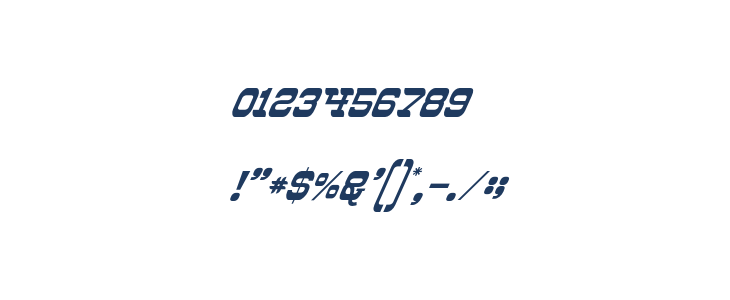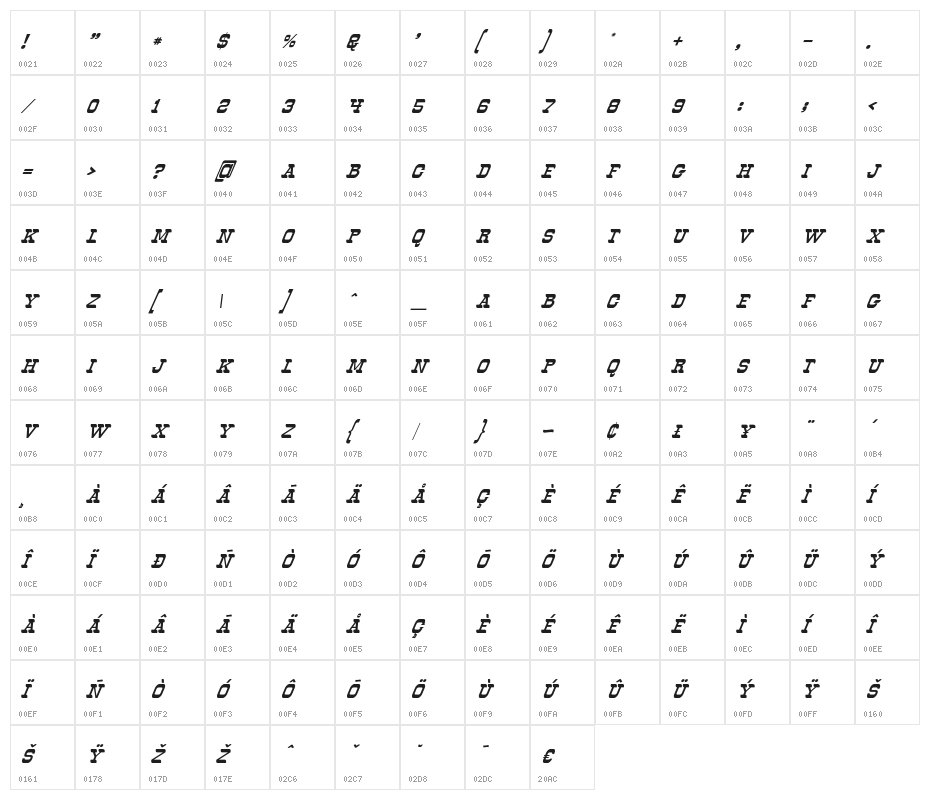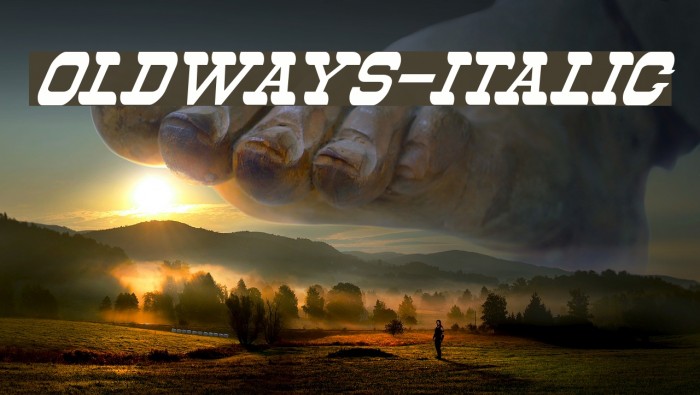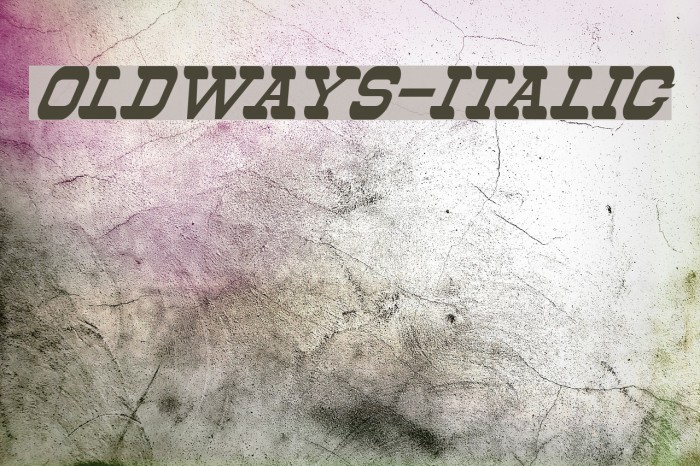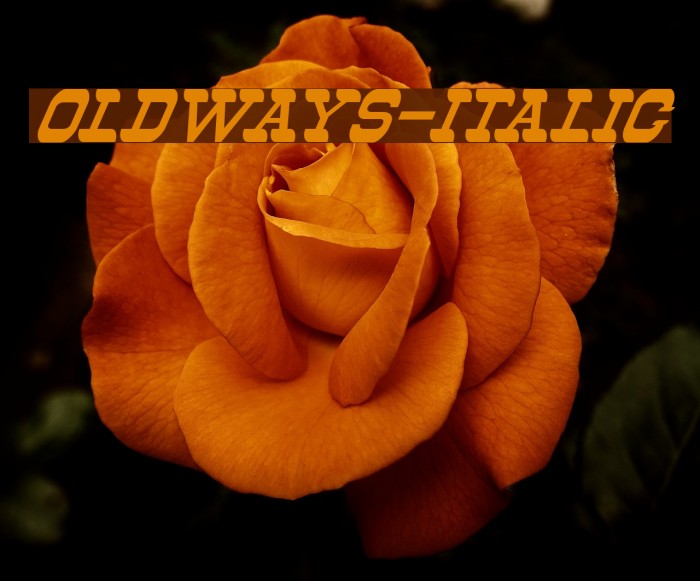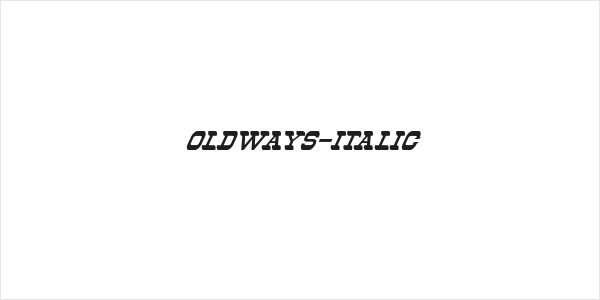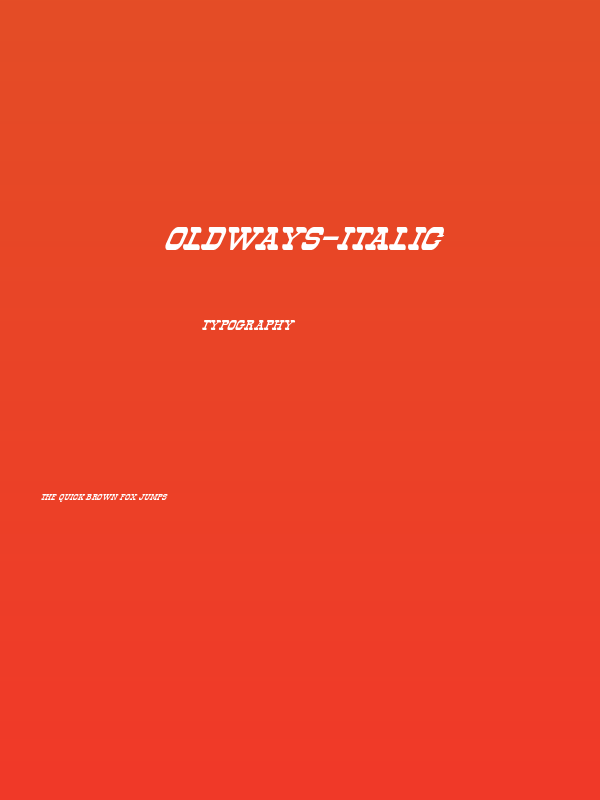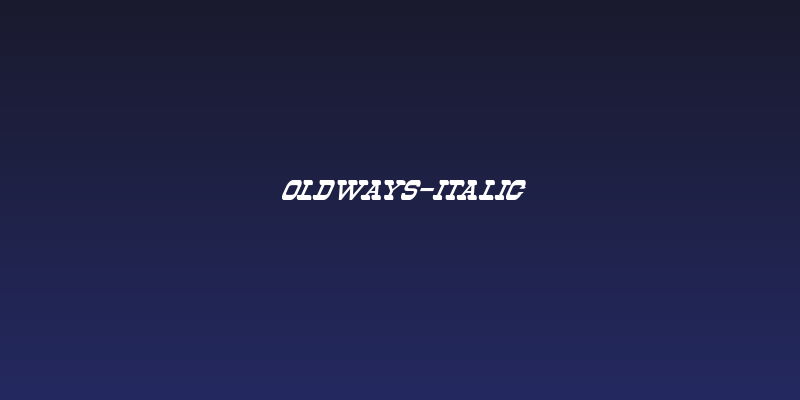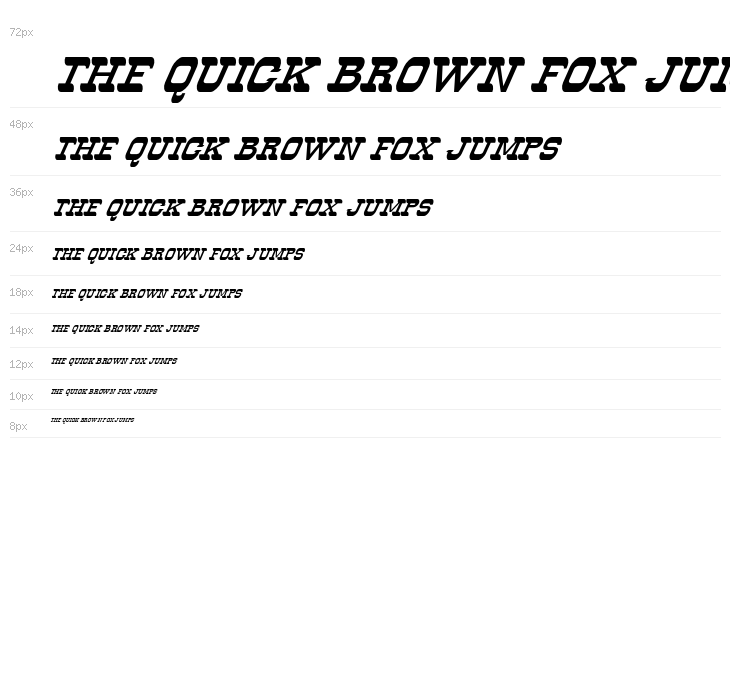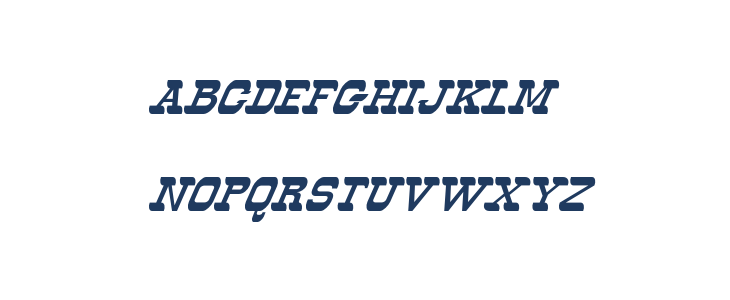
Oldways-Italic Font
Oldways-Italic Description
This font features a bold, italicized style with a distinct slant, giving it a dynamic and energetic appearance. The characters are robust and have a strong presence, making them suitable for attention-grabbing designs. The strokes are consistent in weight, providing a uniform look across all characters. The font includes both uppercase and lowercase letters, numerals, and a variety of special characters, ensuring versatility in usage. Its boldness and italic nature make it ideal for projects that require a sense of movement and emphasis.
| Proposed Projects | Ideal for sports branding, dynamic posters, and bold headlines. |